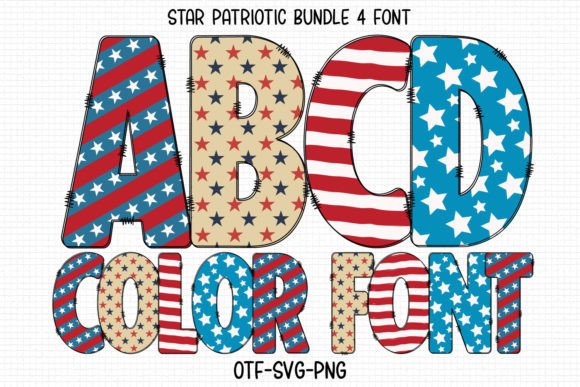
Unleash your creativity and ignite your designs with Star Patriotic Font, a vibrant and captivating display color font that radiates positivity and stands out in any project. It's a modern masterpiece created by Color Studio, a team dedicated to crafting fonts that are both visually striking and easy to use.
With Star Patriotic Font, you'll have the power to transform your design ideas into eye-catching works of art. Envision vibrant posters that captivate your audience, merchandise that pops off the shelves, packaging that demands attention, and logos that leave a lasting impression.
This versatile font is the perfect choice for a wide range of design projects, from playful invitations to bold advertisements. Its unique color accents add an extra layer of depth and dimension, making your creations truly unforgettable.
Step into a world of endless possibilities with Star Patriotic Font. Its modern design, vibrant colors, and ease of use make it the perfect tool for designers of all levels. Experience the joy of creating designs that shine, resonate, and leave a lasting impact on your audience.